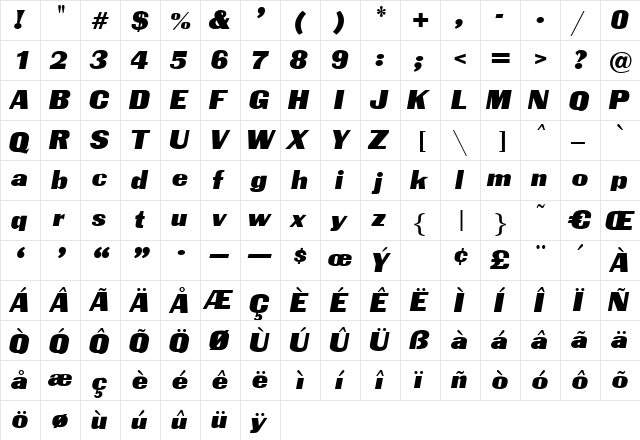
Airline Regular Font Preview
Airline Regular
Design Context for Airline Typeface
Airline is a composed and adaptable typeface that performs quietly and consistently across a wide range of design contexts.